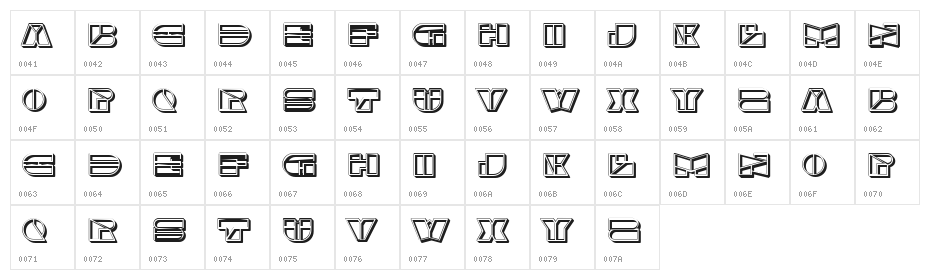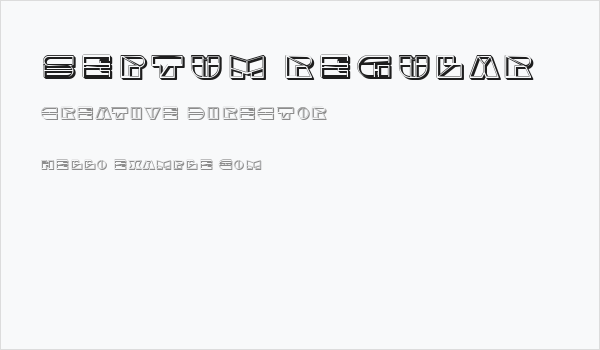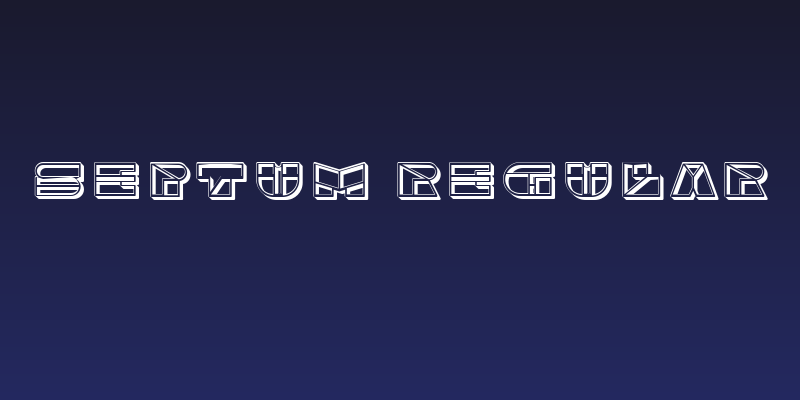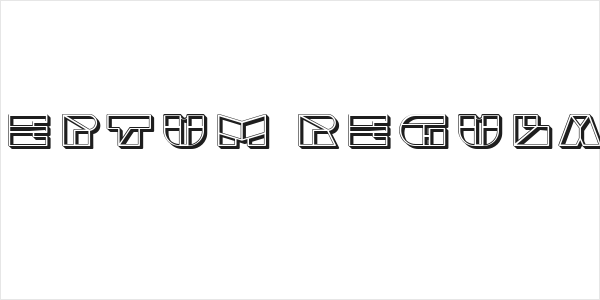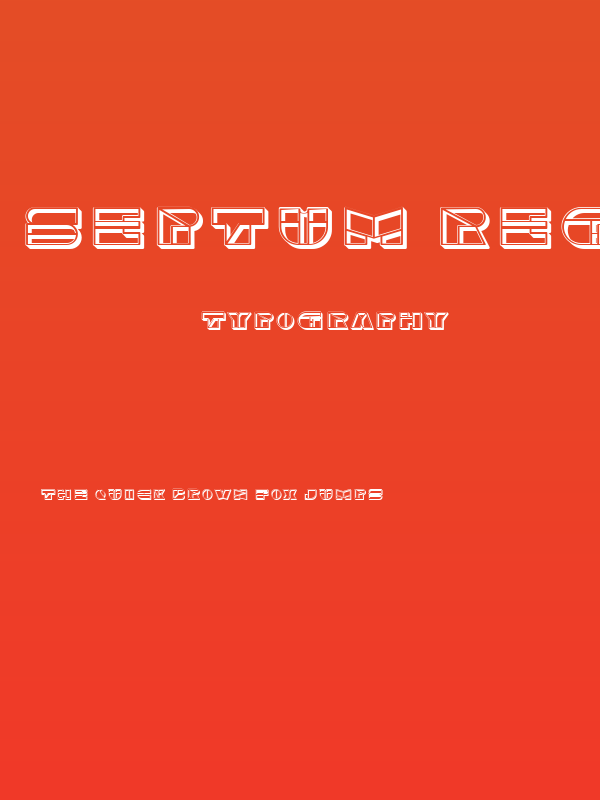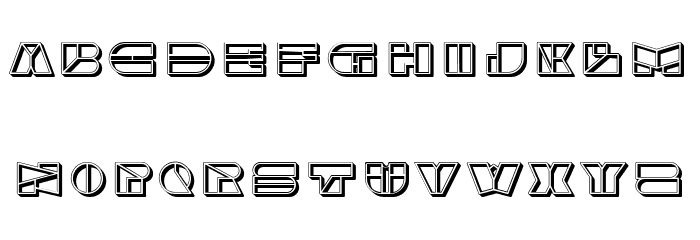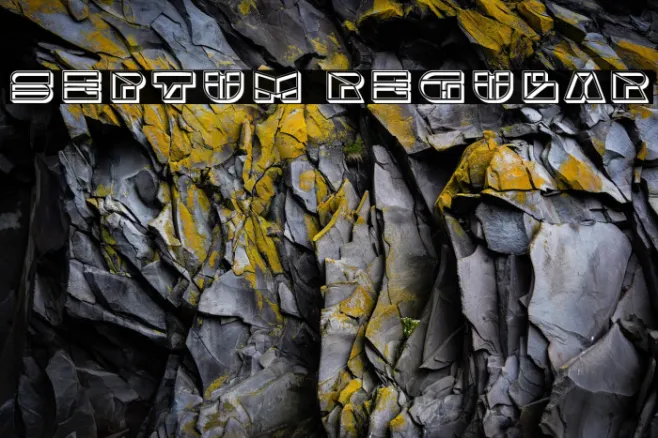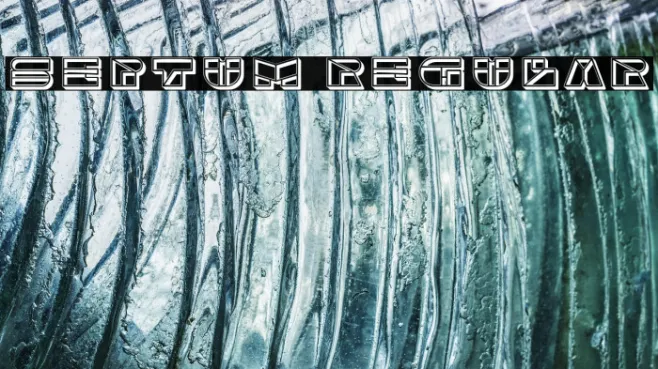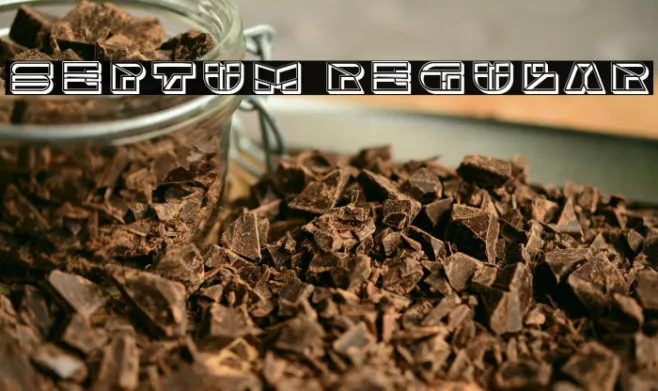
Septum Regular Font
Septum Regular Description
This font features a bold, geometric design with a distinct three-dimensional effect. Each character is constructed with a combination of solid and outlined segments, creating a layered appearance. The uppercase letters exhibit a strong architectural feel, with sharp angles and clean lines. The lowercase letters maintain the same structural integrity, offering a cohesive look across both cases. The numerals and special characters follow the same design principles, ensuring uniformity throughout the typeface. This font's unique style makes it stand out, offering a modern and futuristic aesthetic.
| Proposed Projects | Ideal for branding, posters, and digital media where a modern, eye-catching typeface is desired. |